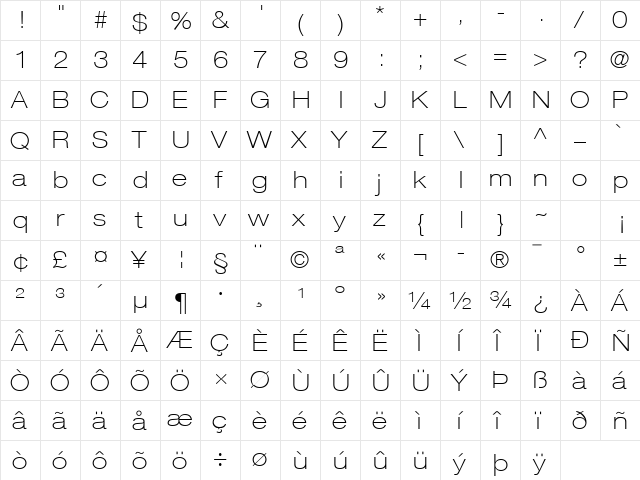
Helvetica Neue LT Com 33 Thin Extended
Design Context for Helvetica Neue LT Com Typeface
Helvetica Neue LT Com takes a measured approach to typography — its balanced proportions and neutral character make it a reliable workhorse for both digital and print work. The delicate stroke weight brings airiness and refinement to layouts.